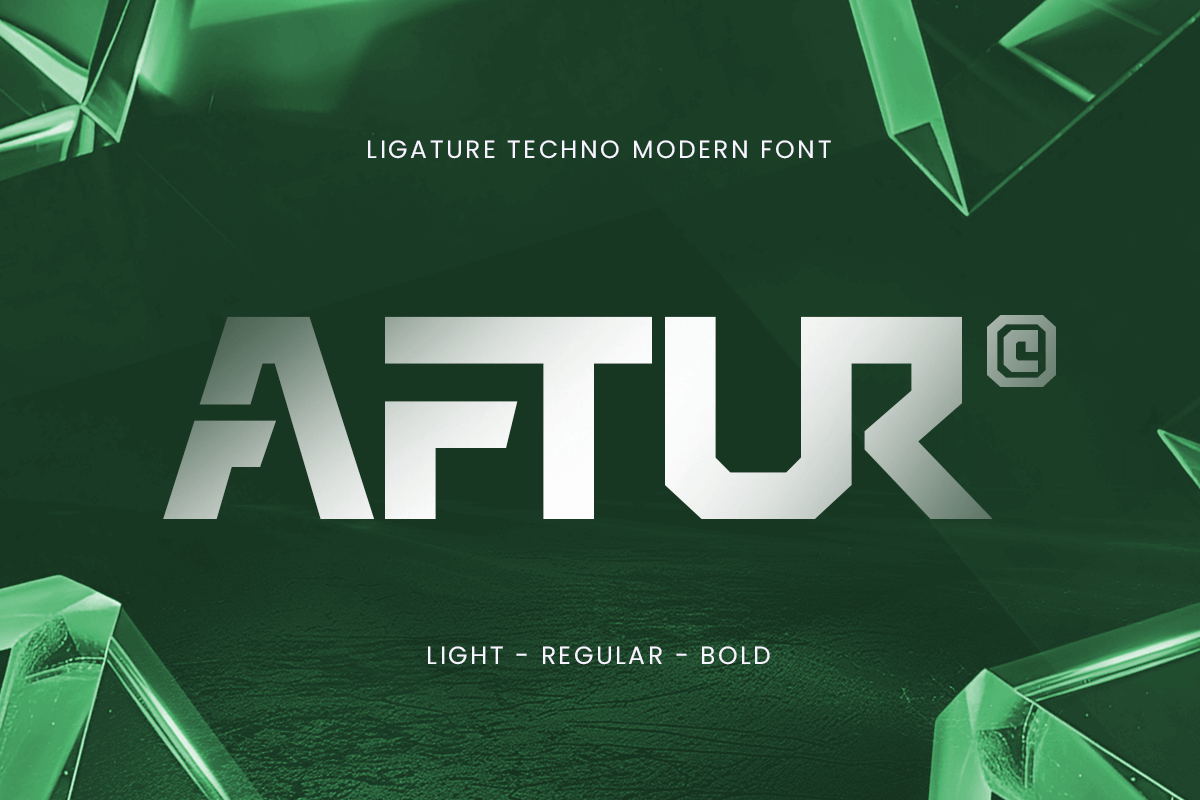
Aftur
-Ligature Techno Modern Logo Font
Aftur - Ligature Techno Modern Logo Font
AFTUR is a ligature techno modern logo font designed to push the boundaries of digital typography. With its innovative ligatures and clean, futuristic style, AFTUR is perfect for tech branding, digital design, and sci-fi inspired visuals. This font merges the best of modern style with a forward-thinking edge.
Ideal for logos, digital products, headlines, and cutting-edge UI/UX design, AFTUR brings a sleek, high-tech feel to your creative projects. The carefully crafted ligatures provide a seamless flow, adding both uniqueness and readability to your work. Whether you’re designing for the tech industry, gaming, or futuristic, AFTUR delivers a clean yet bold statement.
AFTUR – Ligature Techno Modern Font Features
• Dynamic ligature-driven design
• Ready with 3 Weights: Light, Regular, Bold
• Perfect for digital and high-tech branding
• Modern, clean, and futuristic style
• Unique with Alternates and Ligature Characters
• OpenType features for extra typographic flexibility